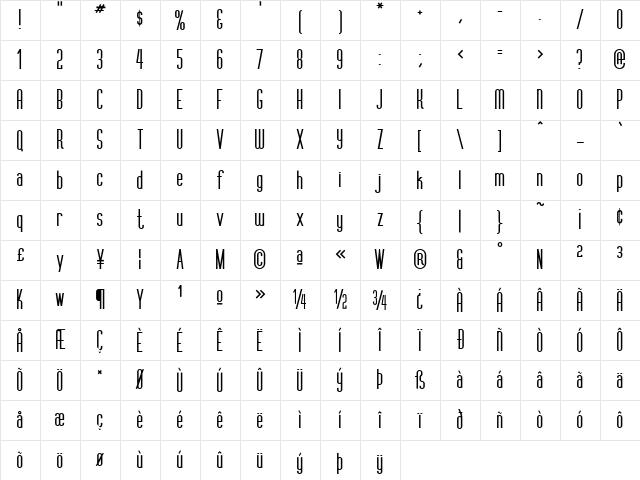
VertigoFLF Bold Free Font
VertigoFLF Bold
VertigoFLF Family
Complete VertigoFLF Bold glyph index. Displaying only characters natively supported by VertigoFLF Bold font.
Design Context for VertigoFLF
VertigoFLF is a composed and adaptable typeface that performs quietly and consistently across a wide range of design contexts. Its bold stroke weight gives it real presence on the page.